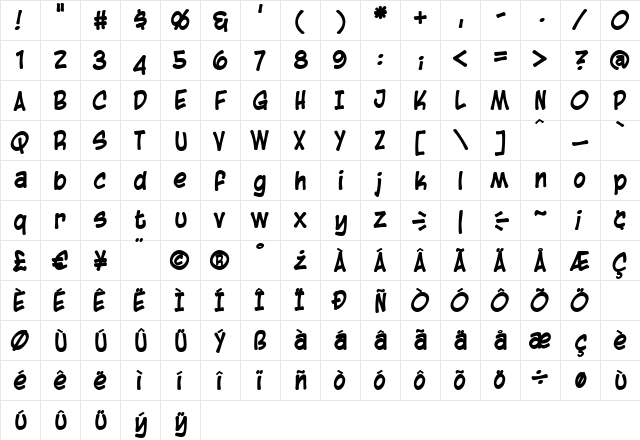
Blambot Casual Bold
Design Context for Blambot Casual Typeface
Blambot Casual takes a measured approach to typography — its balanced proportions and neutral character make it a reliable workhorse for both digital and print work. The heavy weight commands attention and anchors typographic hierarchies.